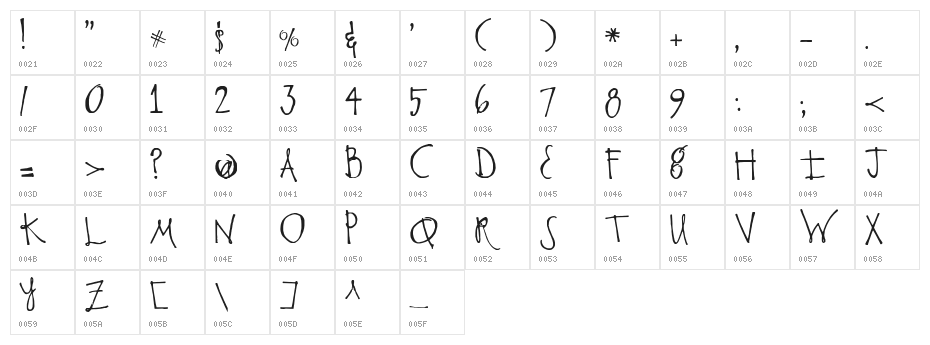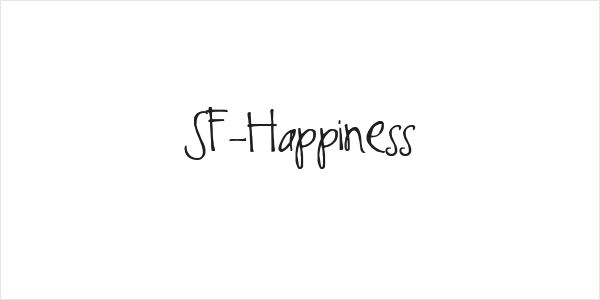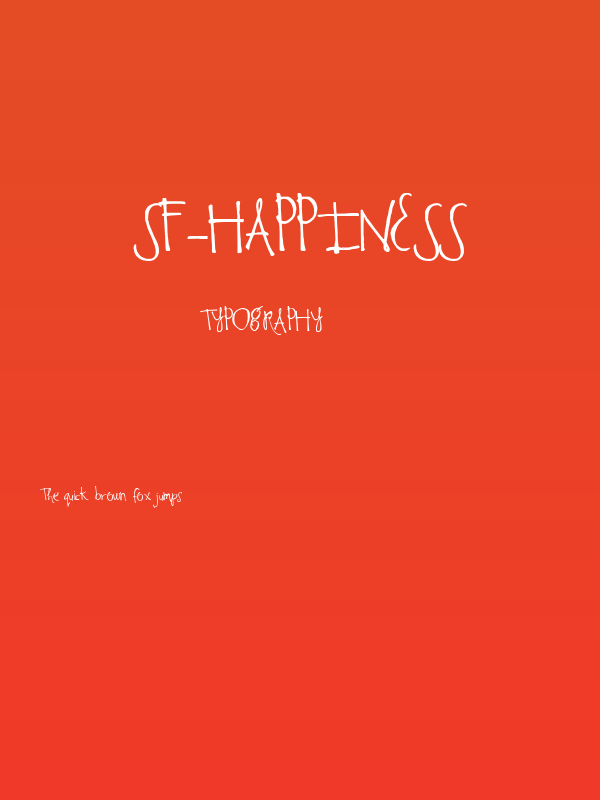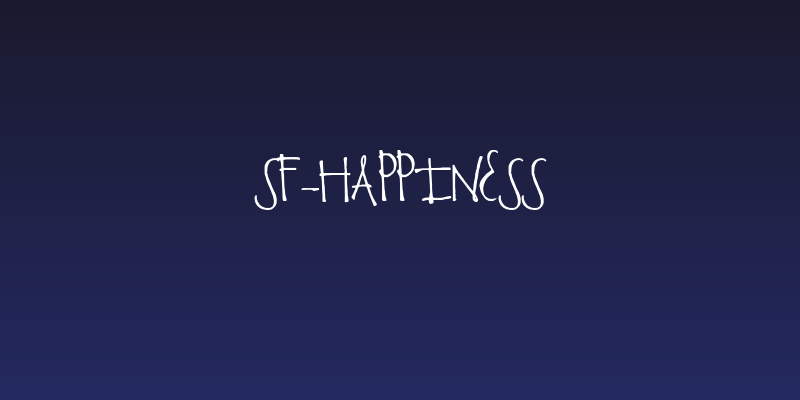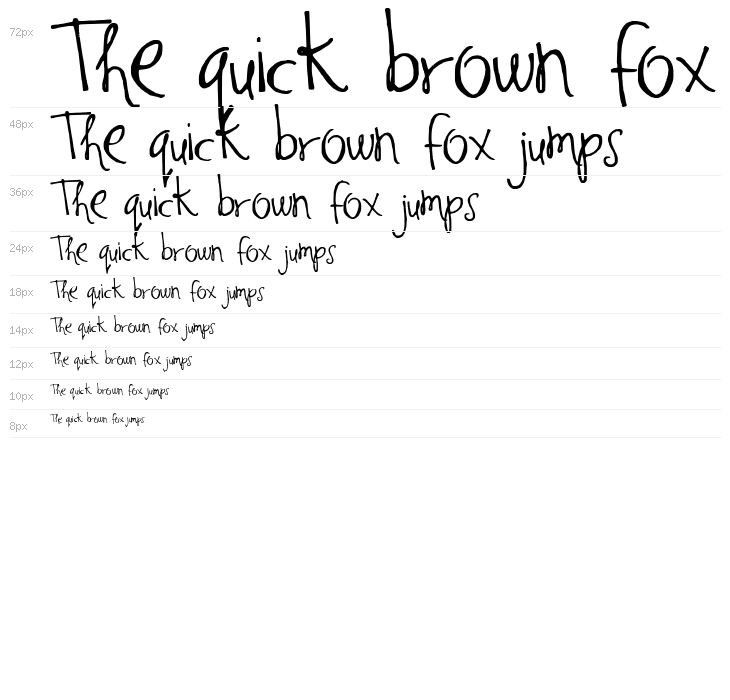
SF-Happiness Font
SF-Happiness Description
This font exudes a playful and whimsical charm, characterized by its irregular, hand-drawn appearance. The letters are unevenly sized and spaced, giving it an informal and casual feel. The strokes are varied in thickness, adding to its dynamic and lively nature. The uppercase and lowercase letters maintain a consistent style, with quirky loops and curves that enhance its unique personality. Numbers and special characters follow the same playful design, making it suitable for creative and fun projects.
| Use Case | Logos, Posters, Creative projects |
| Proposed Projects | Ideal for children's books, greeting cards, playful branding, and creative posters. |